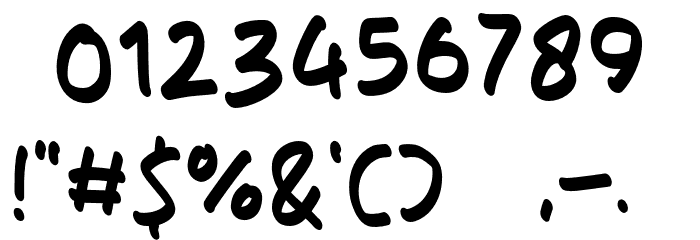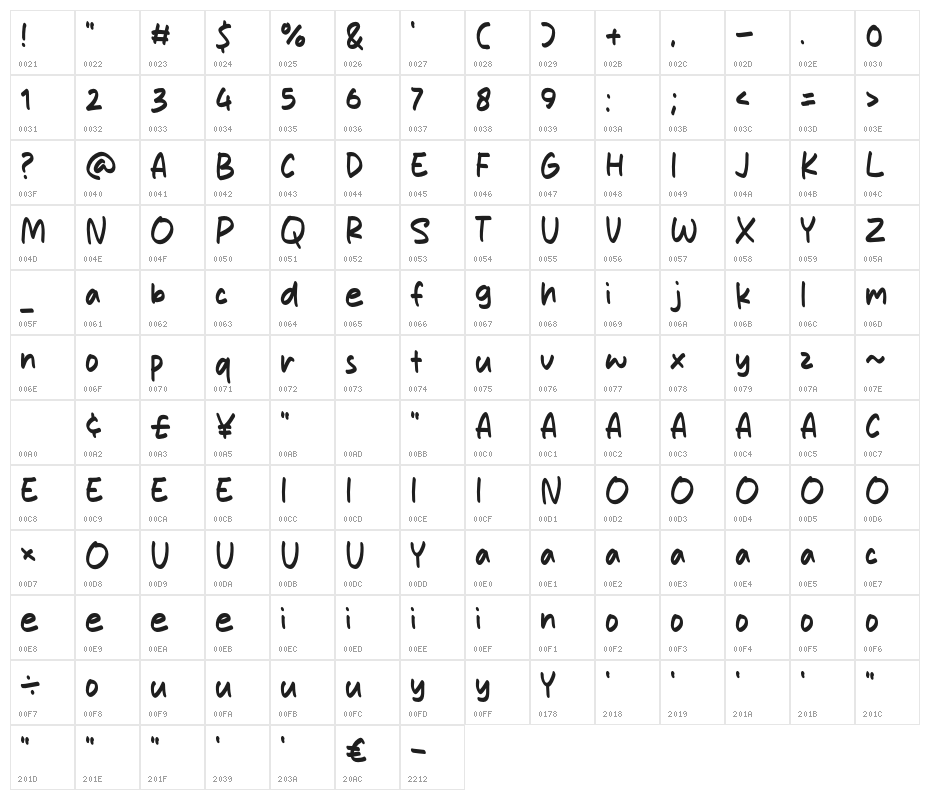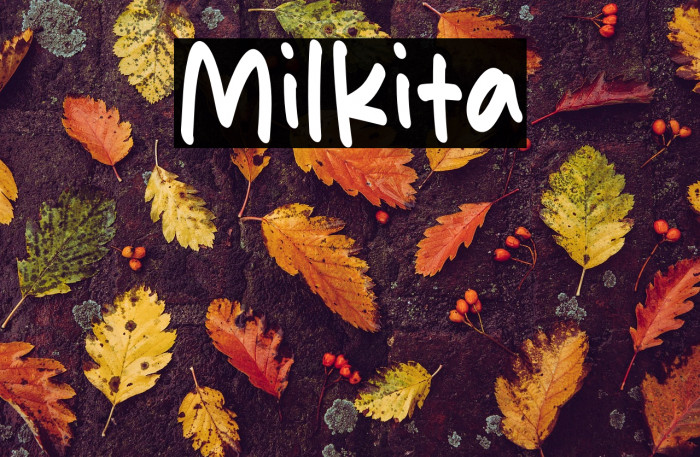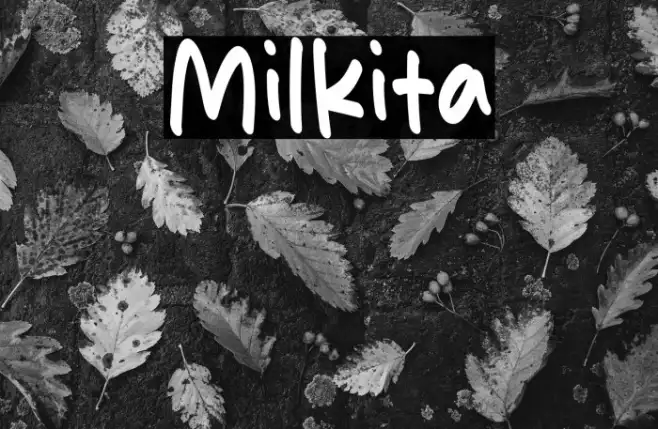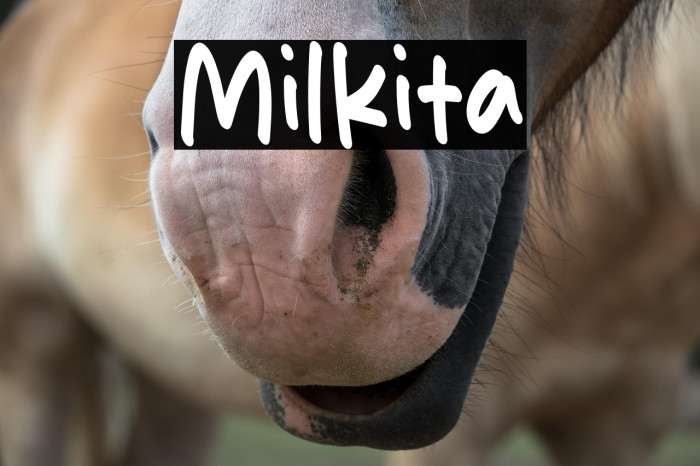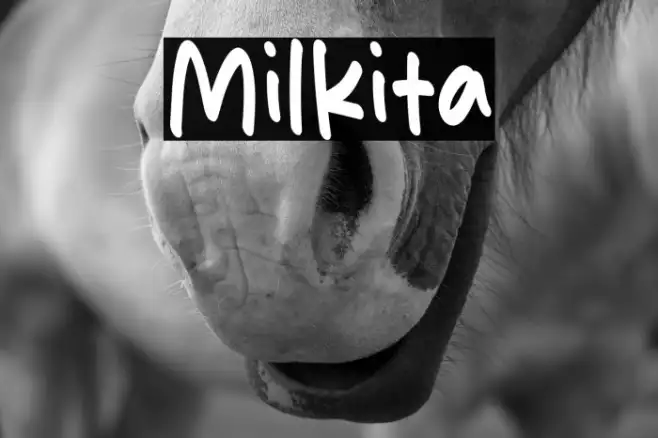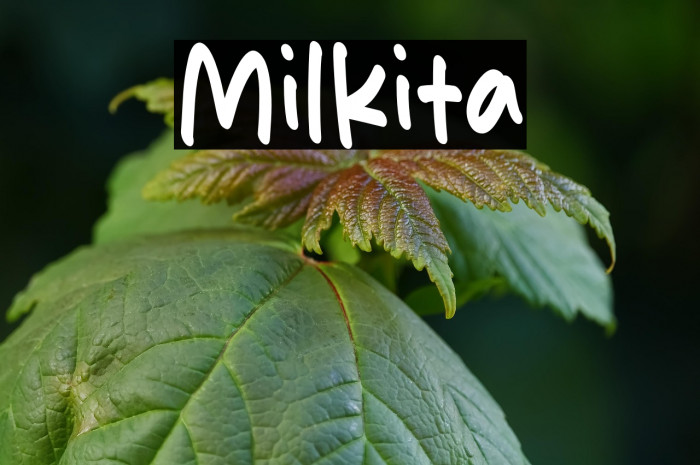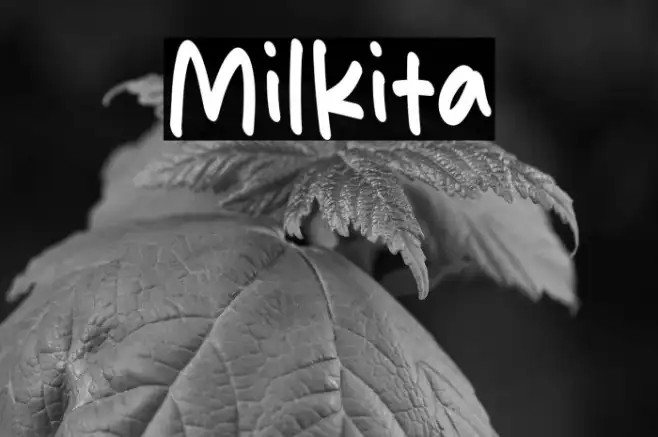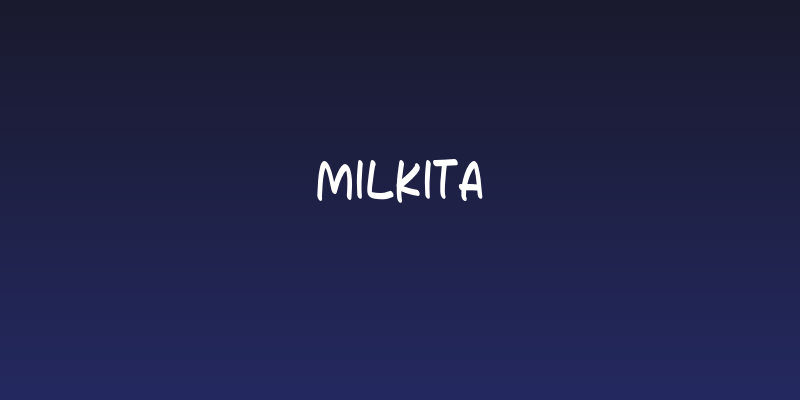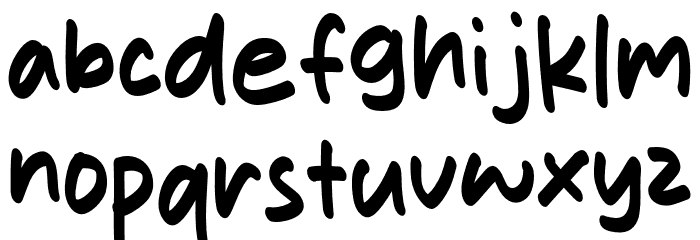
Milkita Font
Milkita Description
This playful and casual font exudes a handwritten charm, characterized by its rounded and slightly irregular strokes. The letters are bold and have a friendly appearance, making them highly legible and approachable. The uppercase and lowercase letters maintain a consistent style, with a slight slant that adds to the informal feel. The numerals and special characters are equally bold and maintain the same playful aesthetic. This font's overall appearance is reminiscent of casual handwriting, making it perfect for projects that require a personal touch.
| Overall Style | Casual, Playful |
| Proposed Projects | Ideal for children's books, greeting cards, informal invitations, and playful branding. |